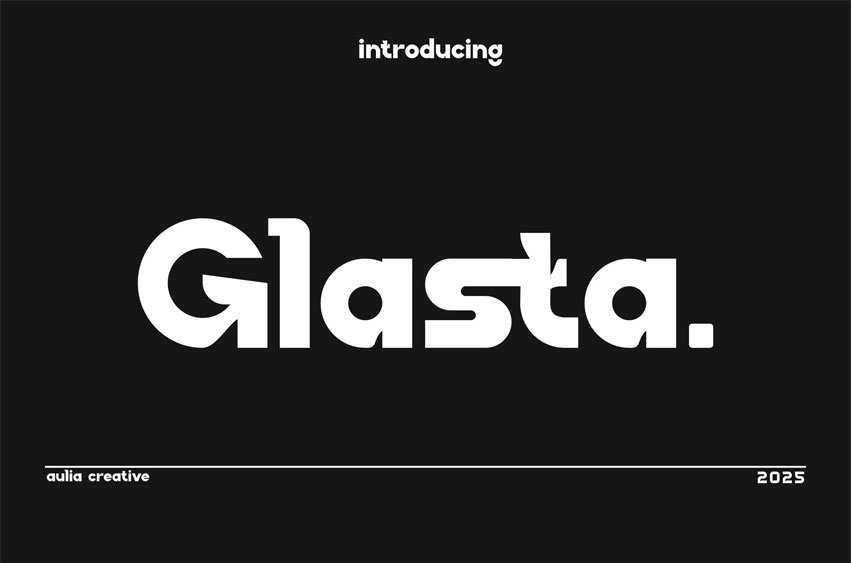
Glasta Font Logo Sans Font is an awesome and authentic display font.
This font is well-suited for a variety of contexts, such as print design, promotional materials, or magazine layouts.